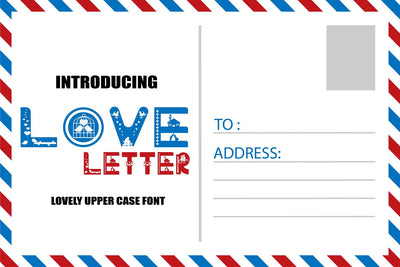
Love letter Font - A lovely upper case font
It's called LOVE LETTER Font. Perfect for Valentines day!!!
LOVE LETTER Font is an unique, with modern and classic touch!
It is a perfect choice for crafters with cutting machines.
LOVE LETTER Font is a fun font that is enough for cutting with Cricut & Silhouette crafting machines, for Titles for kid's book, scrapbook, logo, icon, phrases
or quotes for winter greeting cards
photo overlay, short phrases, children’s book, gift shops tag,
presentation in social media Pinterest, Instagram, Facebook or others.